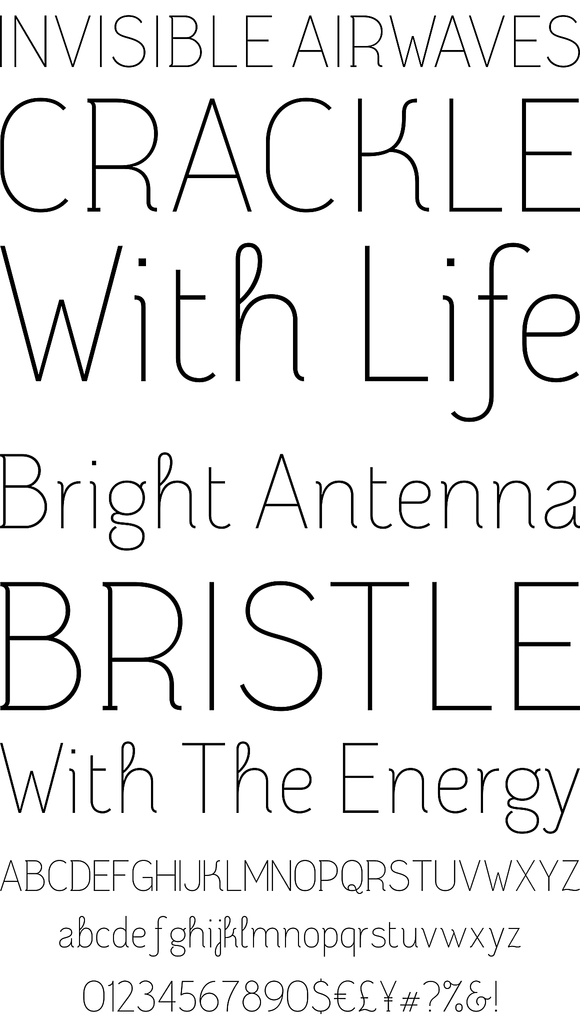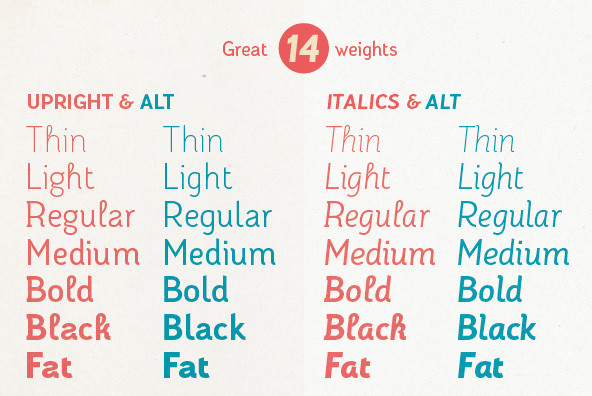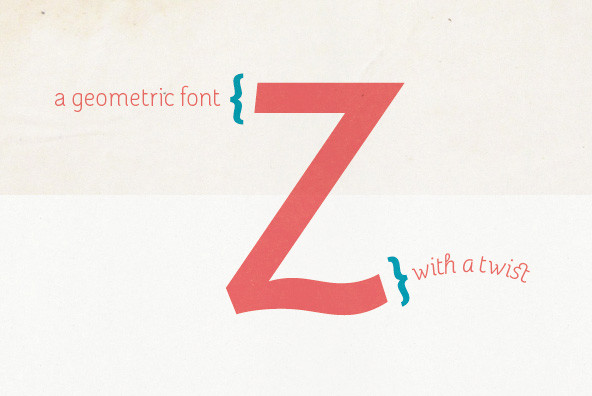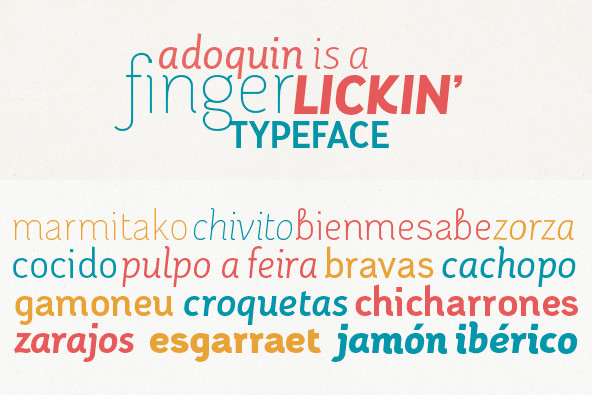
Adoquin
Foundry: Juanjo Lopez
Adoquin is a clean and friendly semi serif family. It comes in seven weights with small caps, wich makes it a versatile typeface.
The design is based on geometric sans serif typefaces and the calligraphic features of old school models, making Adoquin a functional and warm font family.
Its informal but elegant look makes it the perfect display type fitted for logotypes, book design, packaging or magazines. Its wide range of weights and discreet alternates makes it very enjoyable to read, so its also perfectly fitted for longer texts.
Adoquin has an extended character set for Central and Eastern European languages, and shows all its potential wit OpenType-savvy applications. Every font includes small caps, ligatures, old style figures, fractions, numerators and denominators and alternative characters without some calligraphic features suited for smaller or longer texts (in this case, the alternative charecters are less ornamented).